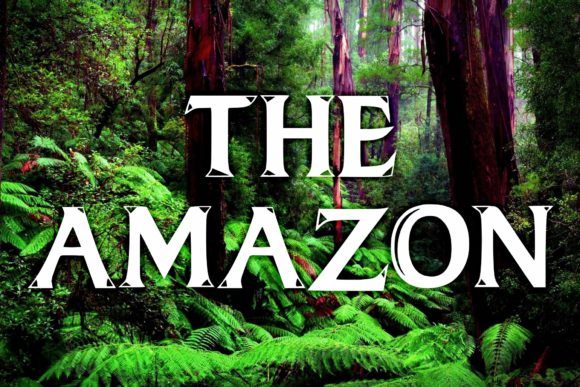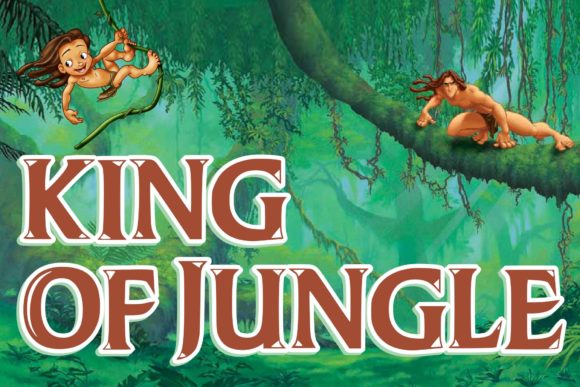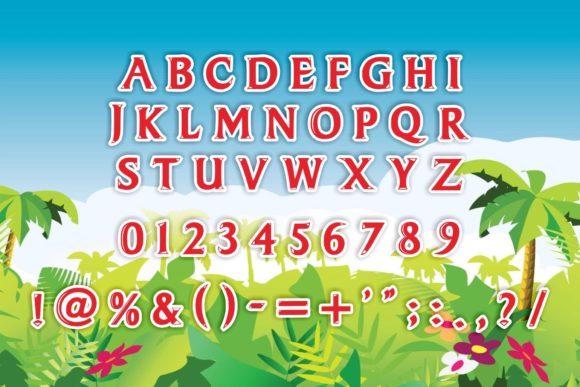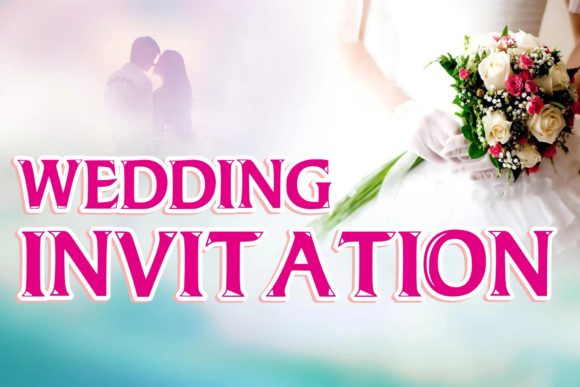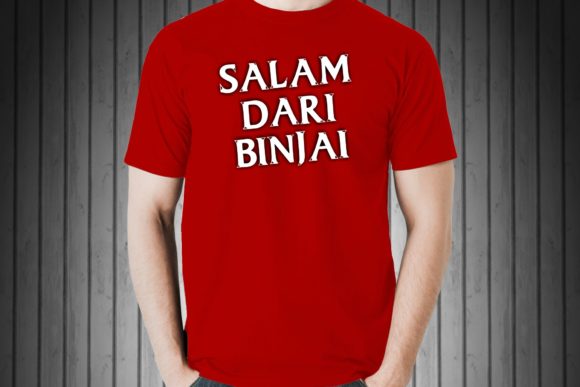
Baby Animal Font: The Modern and Cool Stylish Display Font for Designers and Crafters
In the world of typography, fonts play a crucial role in conveying the tone and personality of a brand or design. For designers and crafters looking for a modern and cool styled display font, Baby Animal Font is an excellent choice. This versatile font is perfect for a wide range of applications, from product packaging to t-shirts, labels, posters, logos, and more. In this article, we’ll explore the features and benefits of Baby Animal Font and how it can elevate your designs.
What is Baby Animal Font?
Baby Animal Font is a modern and cool styled display font designed to make a statement. Its unique and stylish design makes it perfect for designers and crafters who want to add a touch of personality to their work. The font’s versatility allows it to be used in various contexts, from bold and eye-catching headlines to subtle and elegant text.
Key Features of Baby Animal Font
- Modern and Cool Design: Baby Animal Font boasts a modern and cool design that will make your designs stand out from the crowd.
- Versatile: This font is perfect for a wide range of applications, including product packaging, t-shirts, labels, posters, logos, and more.
- Easy to Read: Despite its stylized design, Baby Animal Font remains easy to read, making it perfect for headlines and titles.
- High-Quality: The font is designed with high-quality and crisp lines, ensuring it looks great in both digital and print formats.
Benefits of Using Baby Animal Font
So, why choose Baby Animal Font for your designs? Here are some benefits of using this amazing font:
- Adds Personality to Your Designs: Baby Animal Font allows you to add a touch of personality to your designs, making them more engaging and memorable.
- Perfect for Branding: The font’s unique design makes it perfect for branding, helping you to establish a strong visual identity for your business or product.
- Time-Saving: With Baby Animal Font, you can create stunning designs in no time, saving you time and effort.
How to Use Baby Animal Font in Your Designs
Using Baby Animal Font in your designs is easy. Here are some tips to get you started:
- Pair it with Other Fonts: Experiment with pairing Baby Animal Font with other fonts to create a unique and visually appealing design.
- Use it for Headlines and Titles: The font’s bold and stylized design makes it perfect for headlines and titles.
In conclusion, Baby Animal Font is a modern and cool styled display font that’s perfect for designers and crafters looking to add a touch of personality to their work. Its versatility, ease of use, and high-quality design make it an excellent choice for a wide range of applications. Whether you’re looking to create stunning product packaging, eye-catching posters, or memorable logos, Baby Animal Font is the perfect choice. So, what are you waiting for? Get creative with Baby Animal Font and take your designs to the next level!
The only limit is your imagination, so let your creativity shine with Baby Animal Font!